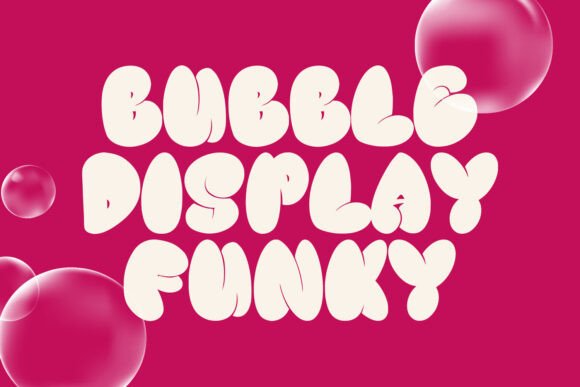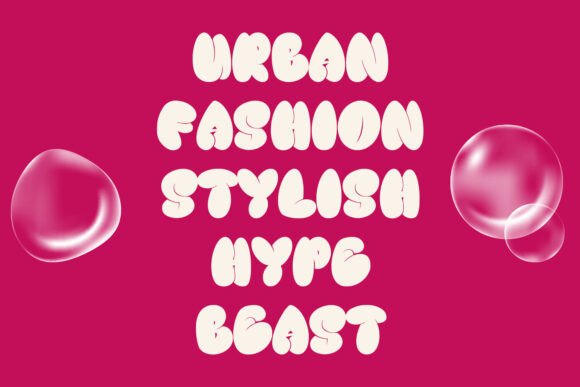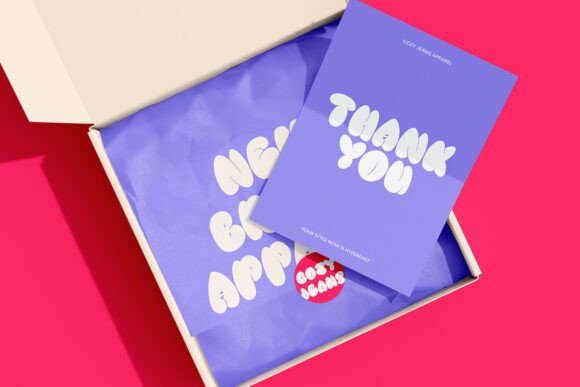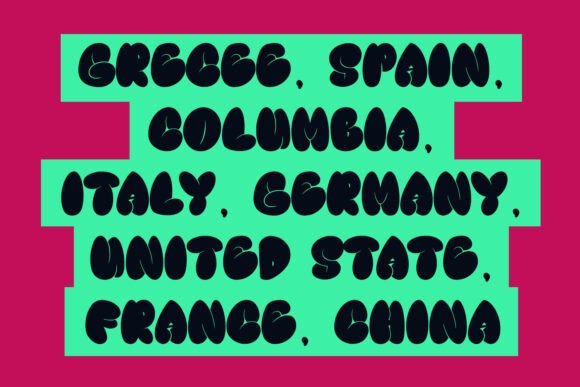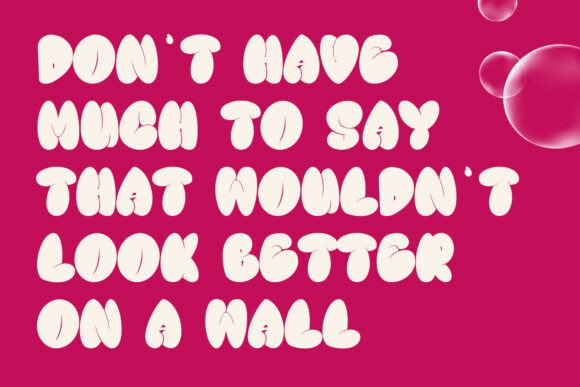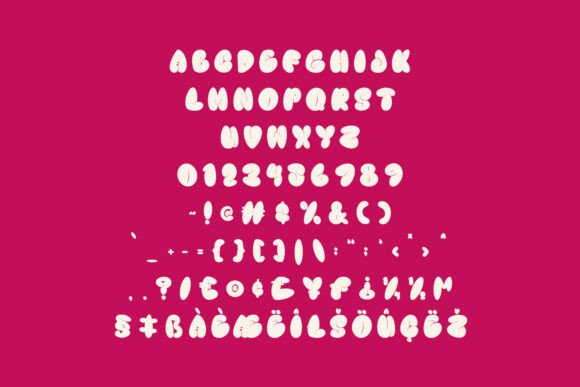
Where Creativity Meets Whimsy
Who hasn’t stared at a blank canvas, desperately searching for the perfect font to bring their design to life? The struggle is real, but what if you stumbled upon a font that’s as quirky as you are? Enter the world of Bogu Bogu Font, a vibrant and playful display font that’s bursting with personality.
Bogu Bogu Font is designed for those who dare to be different, with exaggerated curves and playful shapes that are sure to grab attention. Whether you’re creating quirky headlines, fun stickers, or kid-friendly branding, this font is the perfect companion to bring your designs to life. As a designer, you know the importance of a well-chosen font in elevating your work, and Bogu Bogu Font is a valuable addition to any design arsenal.
Bogu Bogu Font Key Features
- Font Family: Bogu Bogu Font is a unique, handwritten font designed for creative and artistic purposes.
- Character Count: Bogu Bogu Font contains a wide range of characters, including uppercase and lowercase letters, numbers, and punctuation marks.
- Unique Characteristics: The font features a unique, handwritten style with varying line widths, making it ideal for creating a personal and creative touch in designs.
Bogu Bogu Font Review
I’ve had the chance to experiment with the Bogu Bogu Font and here’s my honest take.
- The Bogu Bogu Font has a unique, playful touch that’s perfect for creative projects.
- The font is highly legible, even at smaller sizes, making it suitable for body text.
- The font’s bold weight is fantastic for headings and titles, adding a nice contrast to the rest of the text.
- The font supports a wide range of languages, including many non-Latin scripts.
- The font may not be suitable for formal or professional projects, as its playful nature may not be taken seriously.
- The font’s bold weight can be a bit too ornate for some designs, so it’s essential to balance it with other typography elements.
- The font may not be available in as many formats as some other popular fonts, which can be a limitation for some designers.
Overall, the Bogu Bogu Font is a great addition to any designer’s toolkit, but it’s essential to use it thoughtfully and in the right context. With its unique personality and high legibility, it’s perfect for creative projects that need a bit of flair.
Getting the Most Out of Bogu Bogu Font
Here are some tips to get the most out of the Bogu Bogu font:
- Use it for titles and headings to add a touch of whimsy.
- Pair it with other fonts to create a unique and playful look.
The Bogu Bogu font is perfect for:
- Children’s books and educational materials.
- Party invitations and event materials.
- Alternatives to Bogu Bogu Font
Great Vibes is a beautiful, elegant script font that’s perfect for creative projects, such as invitation cards, posters, and social media graphics. It’s a great alternative to Bogu Bogu Font for those looking for a more refined and sophisticated look.
Compared to Bogu Bogu Font, Great Vibes has a more flowing and organic feel, making it ideal for projects that require a touch of whimsy and personality. While Bogu Bogu Font is more playful and quirky, Great Vibes is more polished and sophisticated.
Lato is a modern sans-serif font that’s perfect for corporate projects, such as business cards, logos, and websites. It’s a great alternative to Bogu Bogu Font for those looking for a clean and minimalist look.
Compared to Bogu Bogu Font, Lato is more straightforward and to the point, making it ideal for projects that require clarity and precision. While Bogu Bogu Font is more playful and attention-grabbing, Lato is more subtle and understated.
Amarante
Amarante is a elegant and luxurious script font that’s perfect for high-end projects, such as luxury branding, packaging, and advertising. It’s a great alternative to Bogu Bogu Font for those looking for a more premium and sophisticated look.